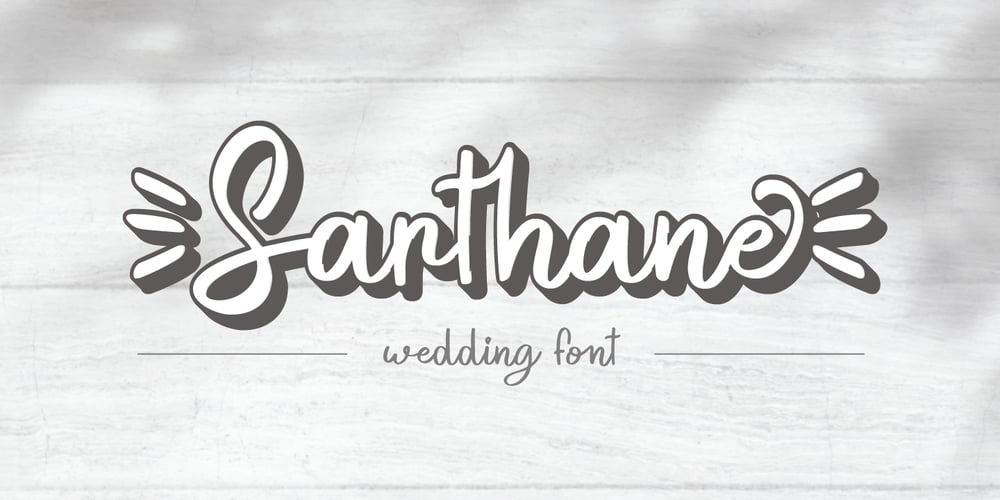
Sarthane Font Family was designed by Fadli Ramadhan Iskandar and published by Attype Studio. Sarthane contains 3 styles and family package options. Sarthane is a layered script font with swash style perfect for wedding designs.Combine it with Sarthane – Extrude & special Character “{” & “}” to make an amazing 3D effect on your letter! Sarthane perfect for wedding promotion, branding, logo, invitation, stationery, social media post, product packaging, merchandise, blog design, game titles, cute style design, Book/Cover Title and more.What’s Included :- Sarthane Family Font- Layered Font- Ligatures- Multilingual Support – Made it into separated file to make it easier to use by beginner & separated file user can use the font with software which doesn’t accept open type features.—Hope you enjoy with our font!Attype Studio